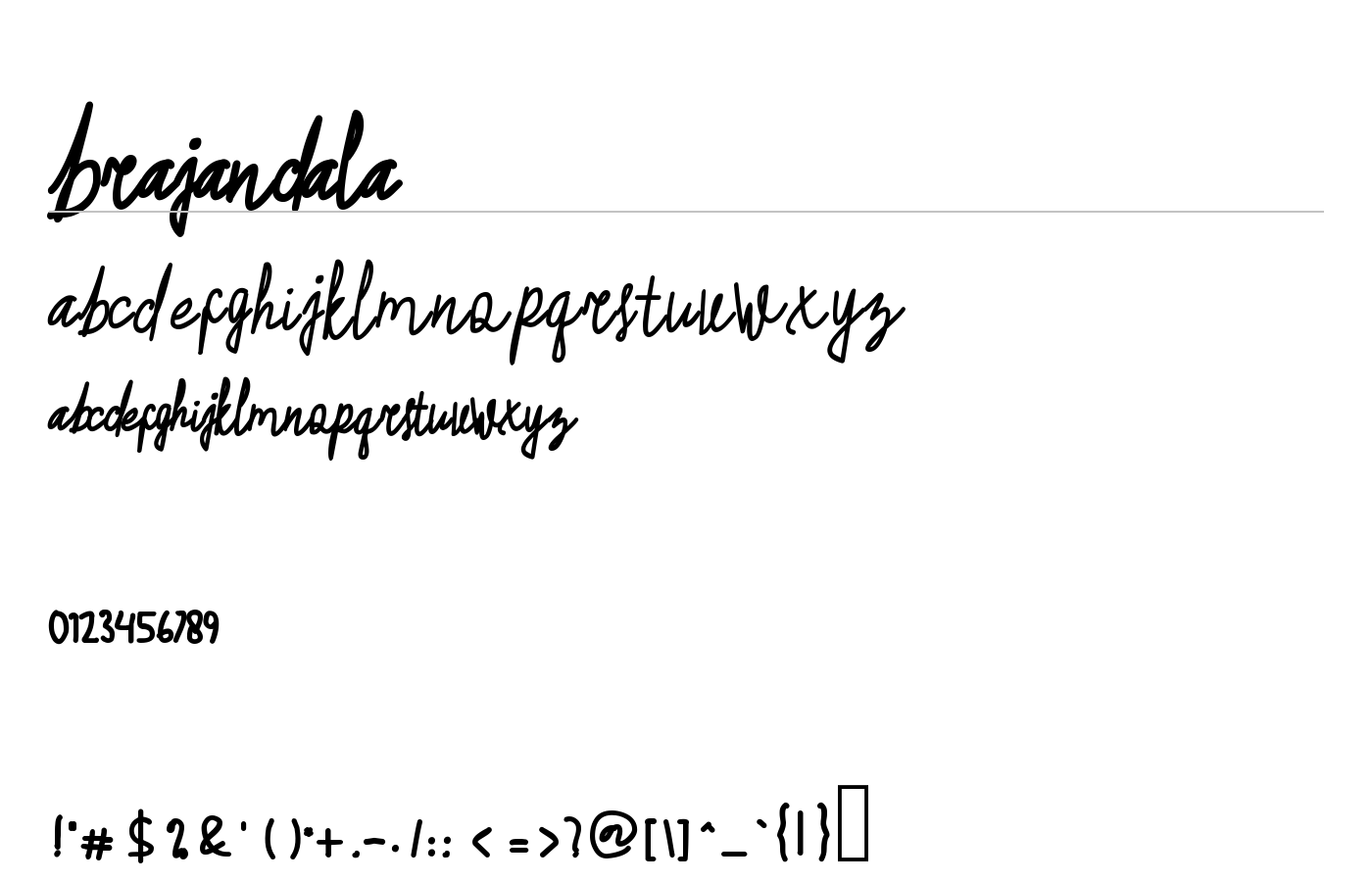
Brajandala is a playful and informal script font with a lively, handwritten feel. Its irregular strokes and casual style make it perfect for creative projects, personal branding, or any design seeking a warm, approachable touch. This font works well for logos, invitations, or social media graphics where a friendly and artistic vibe is desired.
Brajandala Font
About Brajandala Font
| Font family | Brajandala Font |